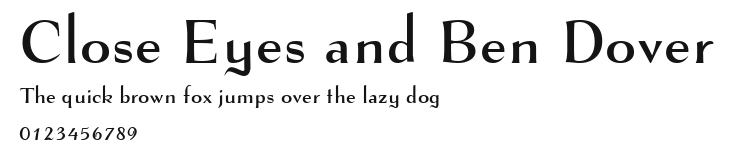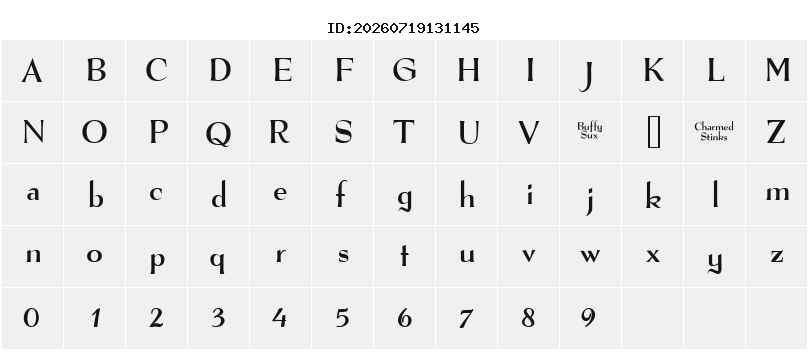
• Font Name: Close Eyes and Ben Dover
• Full Font Name: Close Eyes and Ben Dover
• Version: Unfinished version. Still working on it
About Close Eyes and Ben Dover.ttf
Close Eyes and Ben Dover.ttf is a modern, elegant sans-serif font designed for ultimate readability and visual harmony. Perfect for branding, headlines, web design, and print materials.